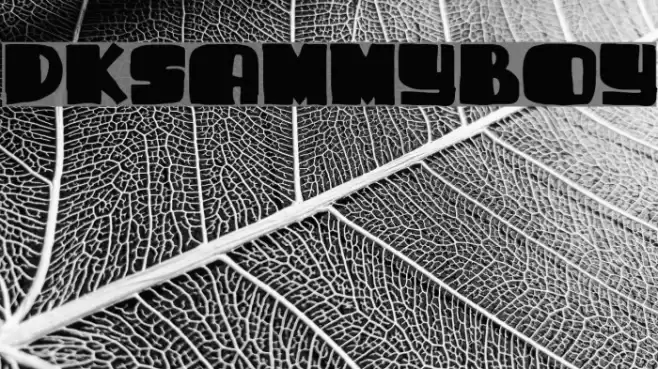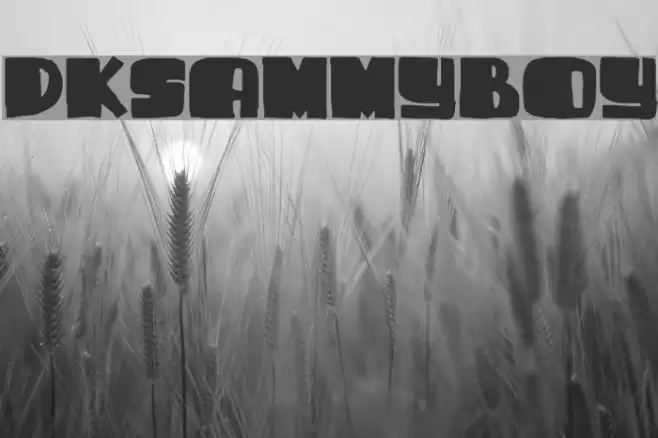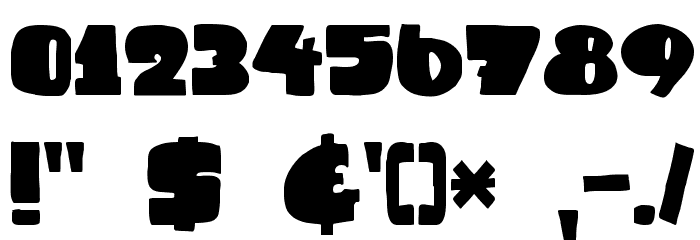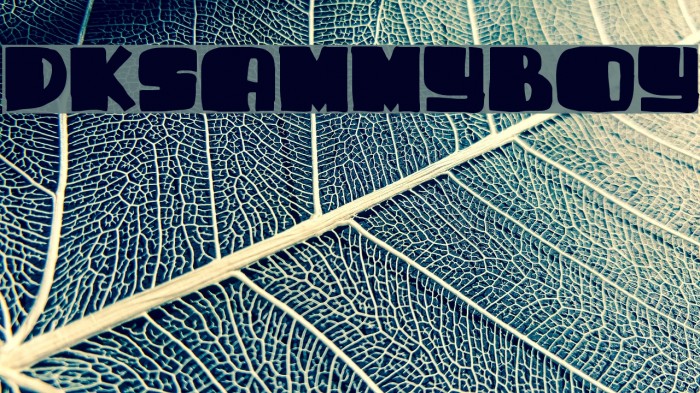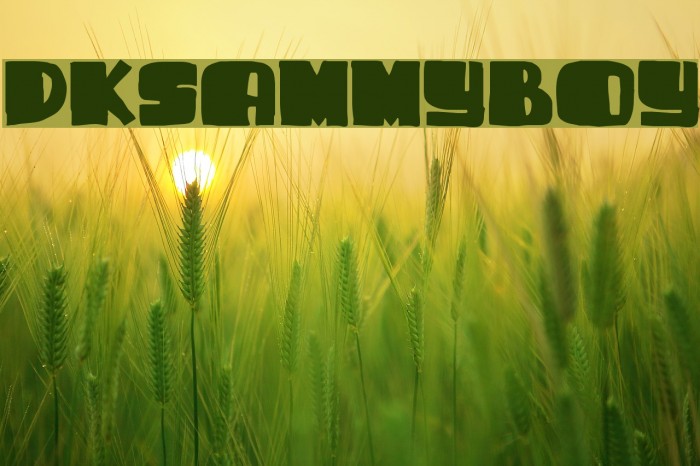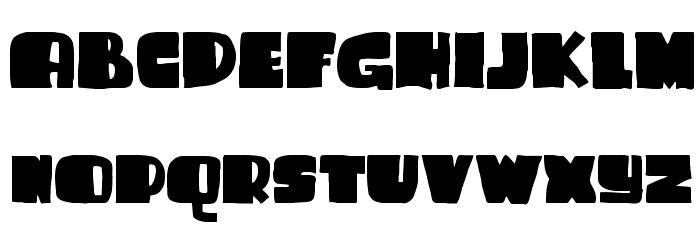
DKSammyBoy Font
DKSammyBoy Description
This bold and chunky font features a playful and robust design, characterized by its thick strokes and slightly irregular shapes. The letters have a strong presence, with rounded edges that add a friendly and approachable feel. The uppercase and lowercase letters maintain a consistent weight, creating a harmonious look. The numbers and special characters follow the same bold style, ensuring uniformity across all elements. This font's unique style makes it stand out, perfect for projects that require a fun and eye-catching typeface.
A bold, playful font with thick strokes and rounded edges from Uncategorized fonts.
- Proposed Projects: Ideal for children's books, comic strips, playful branding, and eye-catching posters.
- Overall Style: Playful